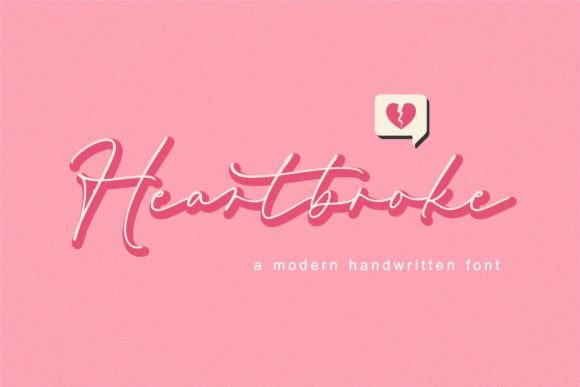
Get ready to make a statement with Heartbroke Font, the ultimate script font for Cricut enthusiasts! Crafted by the talented designers at Aestherica Studio, Heartbroke is the perfect companion for your creative adventures, whether you're designing product packaging, branding projects, magazines, or captivating social media posts.
Immerse yourself in the beauty of Heartbroke's delicate curves and flowing lines. This script font adds a touch of elegance and sophistication to your designs, making them stand out from the crowd. Whether you're creating wedding invitations or simply expressing yourself through words, Heartbroke's charm will leave a lasting impression.
Unleash your creativity and let Heartbroke take your designs to new heights. Its versatility knows no bounds, making it suitable for a wide range of projects. From eye-catching product labels to memorable branding elements, Heartbroke effortlessly adapts to your vision.
With Heartbroke in your arsenal, you'll have the power to transform ordinary words into captivating expressions. Its unique style adds a personal touch to any project, evoking a sense of authenticity and connection. Prepare to captivate your audience and leave them in awe with every design you create.